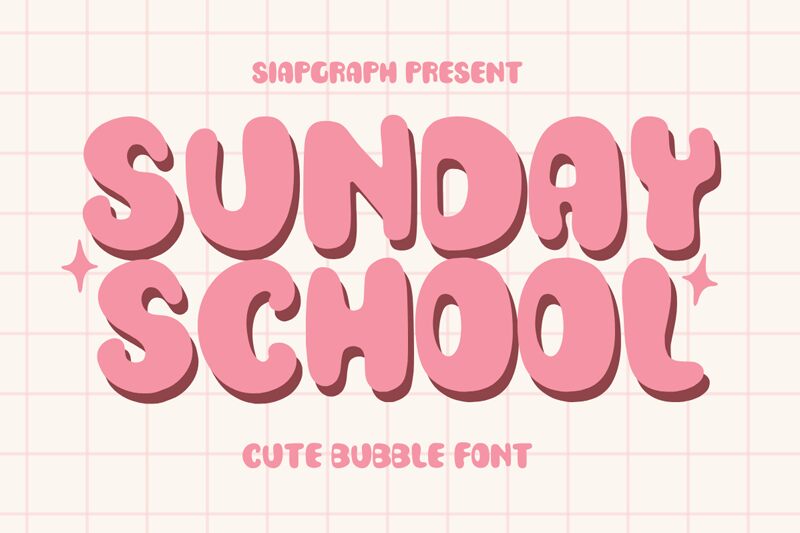
Sunday School font designed by Siapgraph is a free font with a cute and playful character. The cartoon font adopts a bubbly style visible across all its characters and symbols. Typographic letters feature connectivity bringing a nice flow to the text to be generated with it. Accentuated dots and fresh design elements give the letters a unique character and contribute to the great overall feel of this font.
Use it in poster design, in books and magazines, in packaging, and labeling, and on any other project that demands such an informal vibe. Also recommended using on invitations, in website design, and for headings and smaller paragraph descriptions. Clothing patterns, fashion posts, social media accounts, and similar visual identity elements are other valuable ideas.